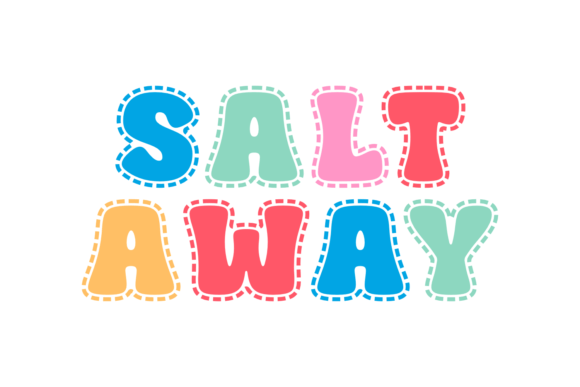
Salt Away Font
Salt Away is a distinctive and stylish font that features unique tracing lines on the exterior of its characters. This decorative typeface combines modern design elements with a touch of hand-drawn charm, making it an excellent choice for creative and visually striking projects.
Salt Away is perfect for creating eye-catching headlines, titles, and logos that stand out from the crowd. Its unconventional design adds a contemporary and edgy touch to any project, making it ideal for use in branding, advertising, and digital media where a bold and innovative typographic statement is desired.